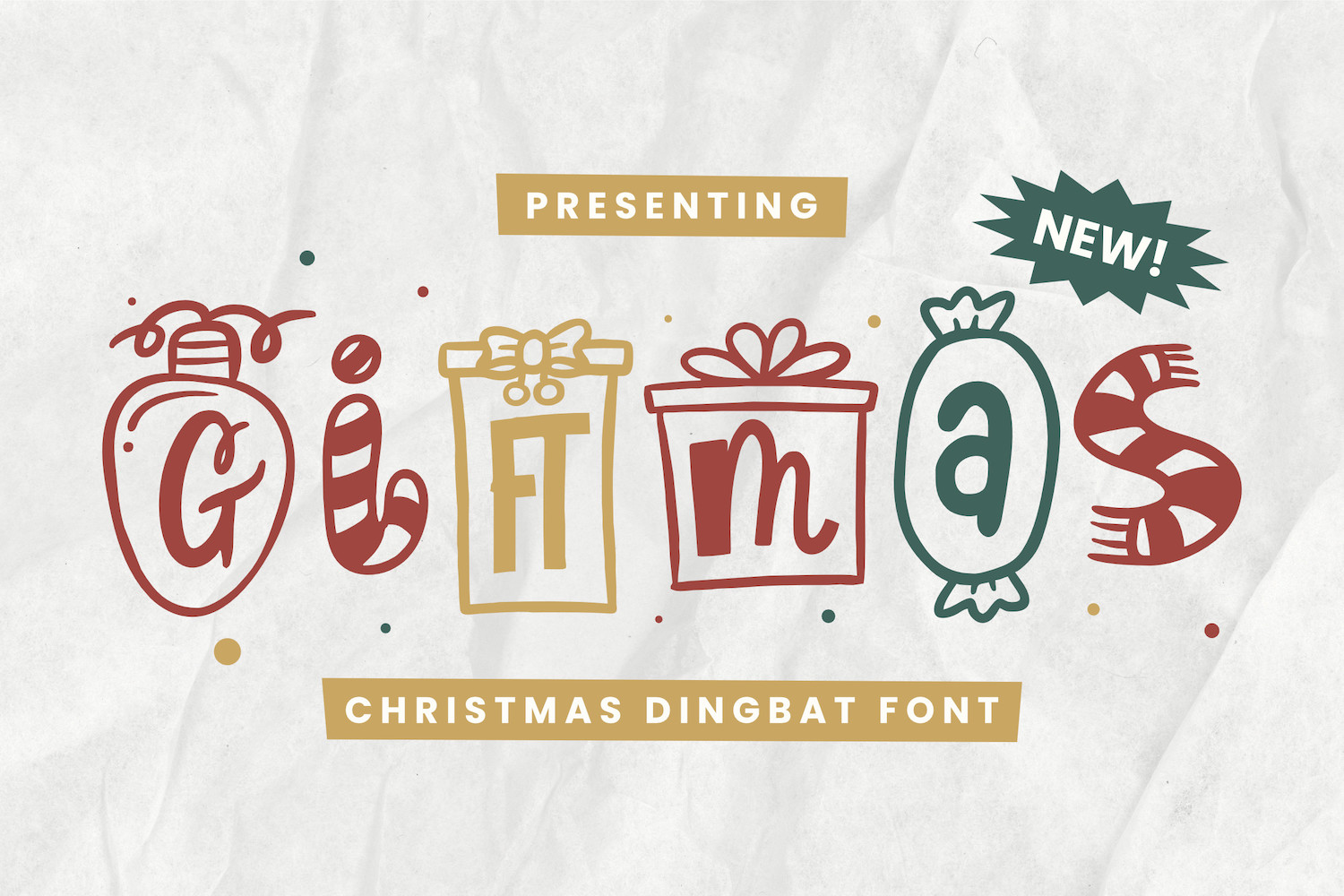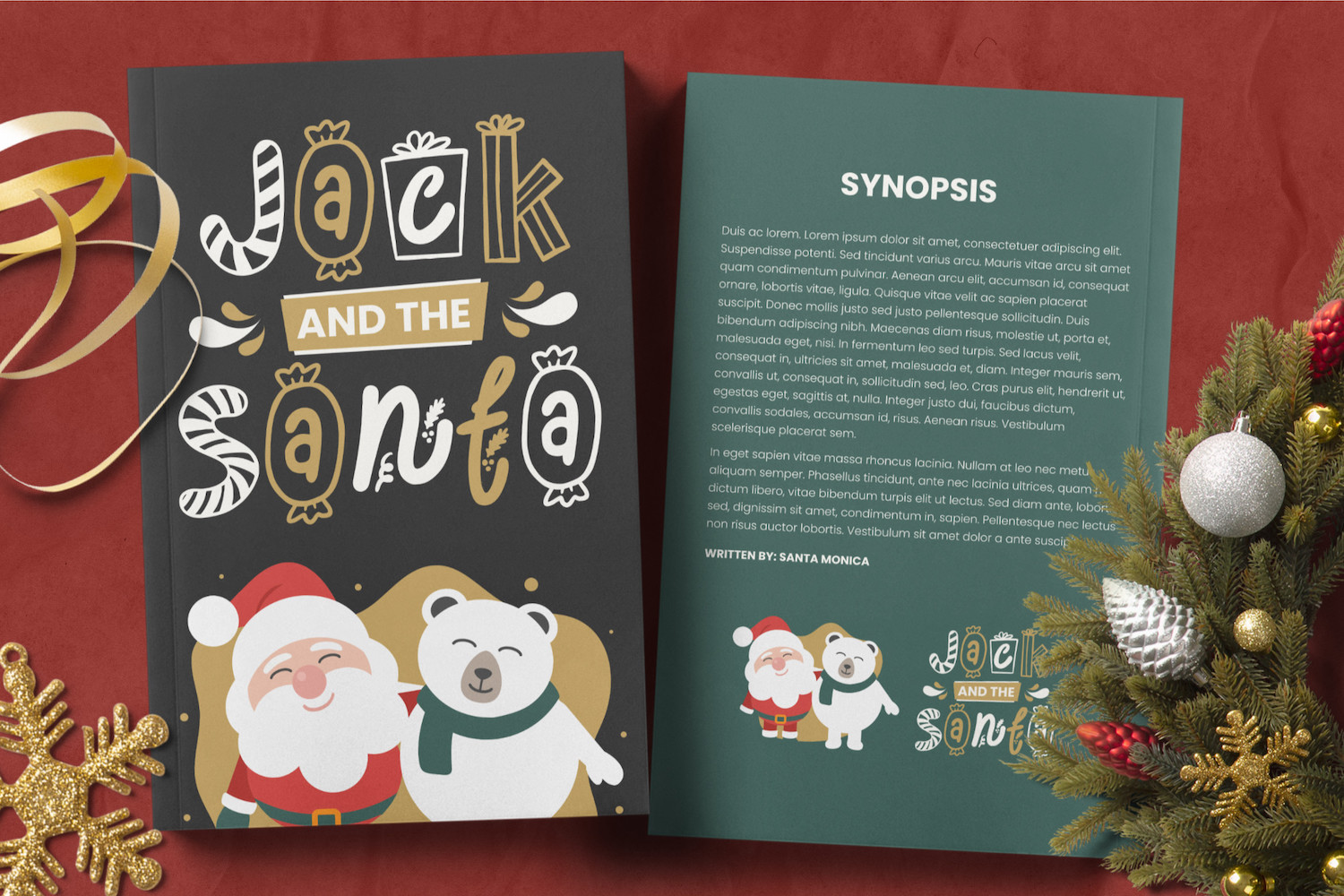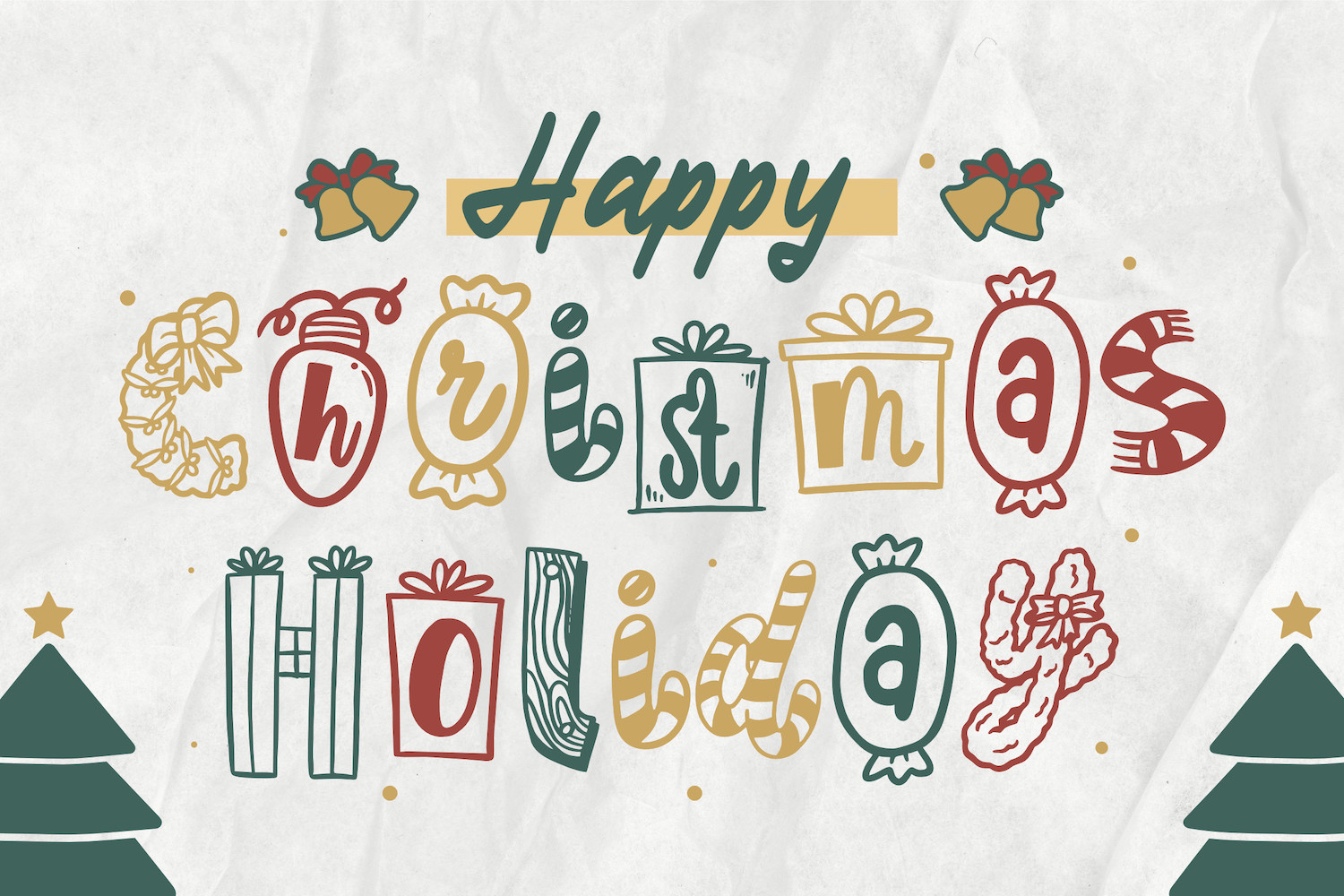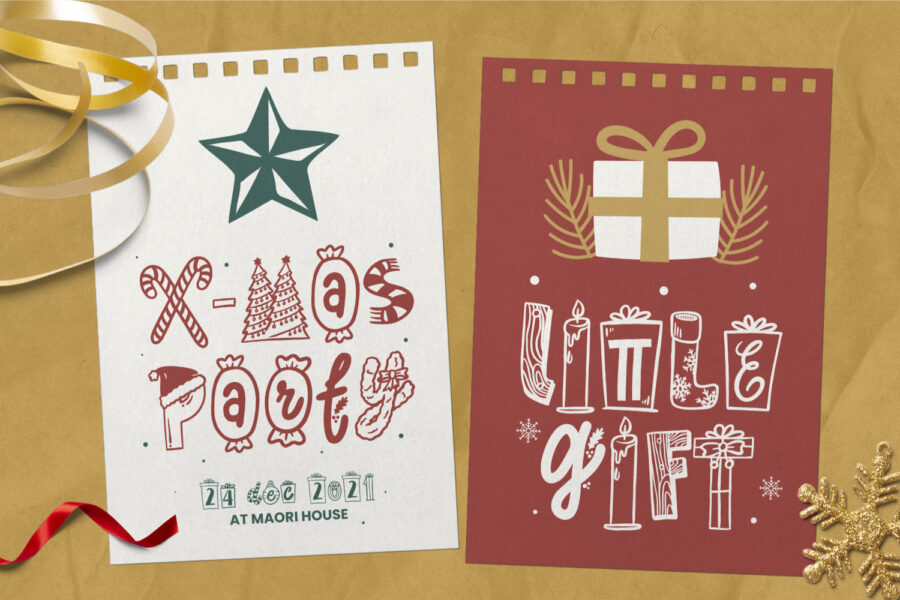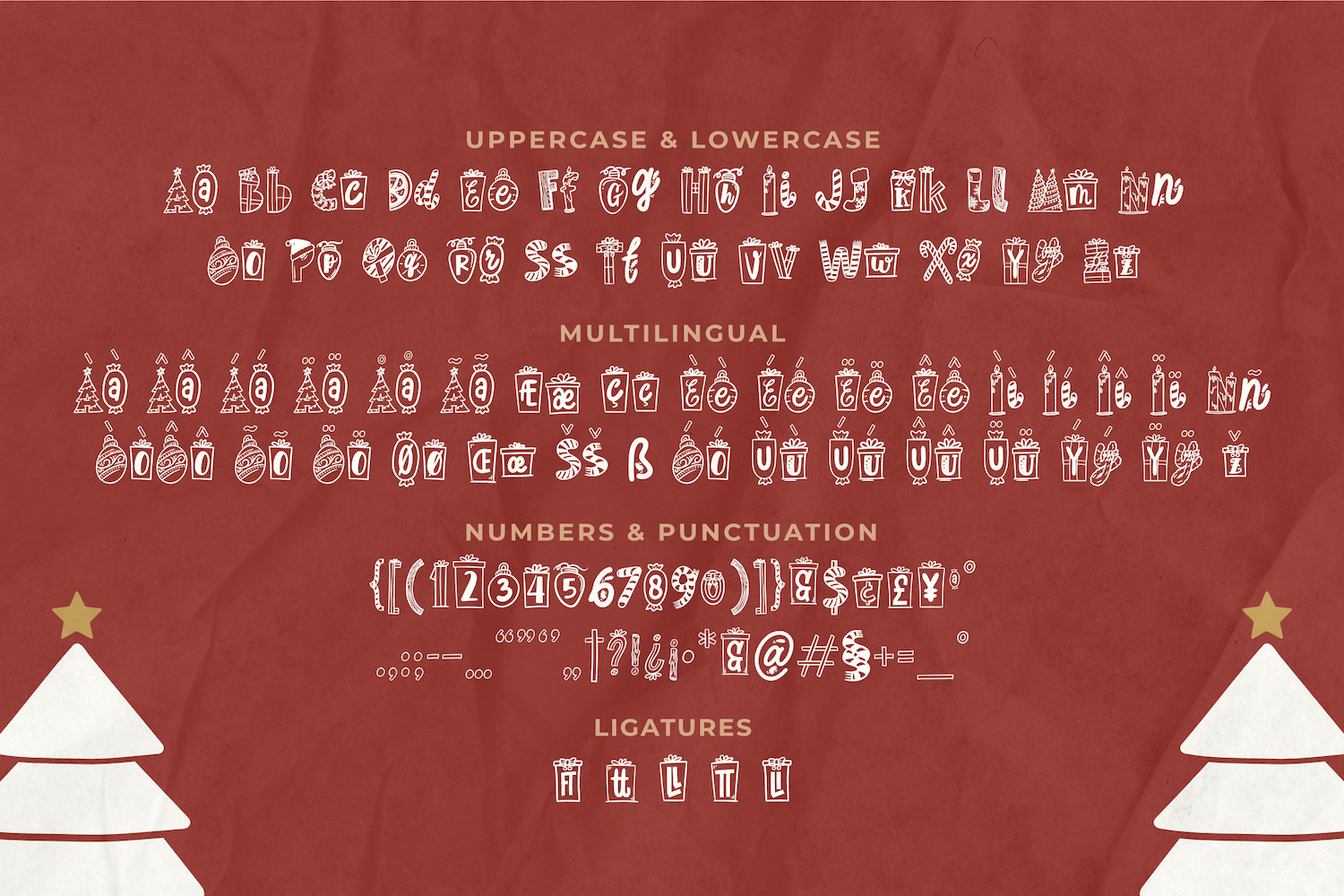
Giftmas is a delightful and festive display font inspired by the spirit of Christmas. Each character is creatively illustrated as holiday-themed elements like ornaments, candy canes, gift boxes, and decorations. Instantly infusing a playful and whimsical charm to any design. It’s perfect for designers looking to add a hand-drawn, character-rich vibe to their holiday cards, packaging, children’s books, and party invitations.
With full uppercase, lowercase, multilingual support, numbers, punctuation, and even fun ligatures, Giftmas is not just decorative but also highly functional. Its detailed illustrations and joyful energy make it ideal for DIY craft projects, branding, merchandise, or seasonal campaigns. Bring joy to your holiday designs with this truly unique and merry font.
Giftmas